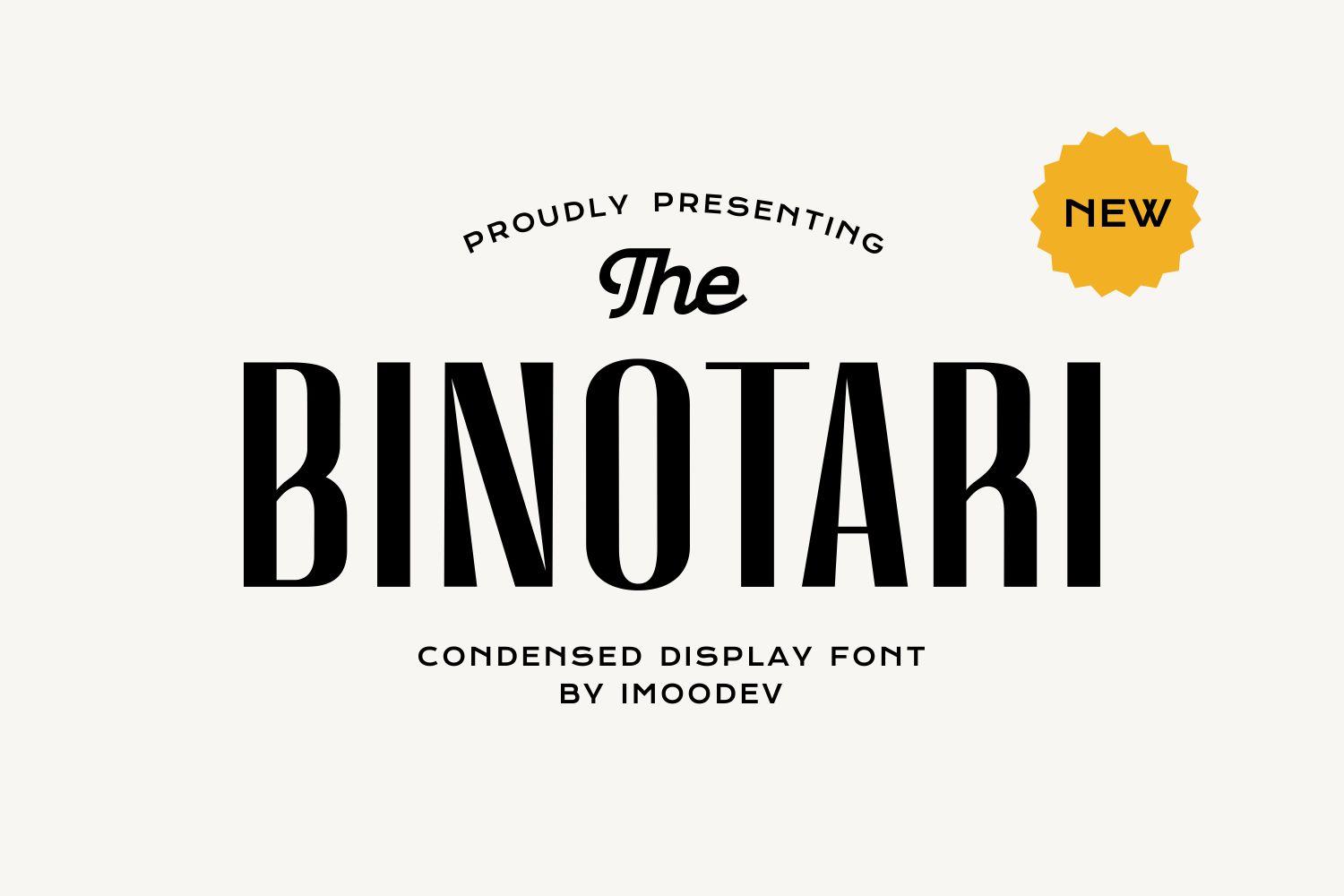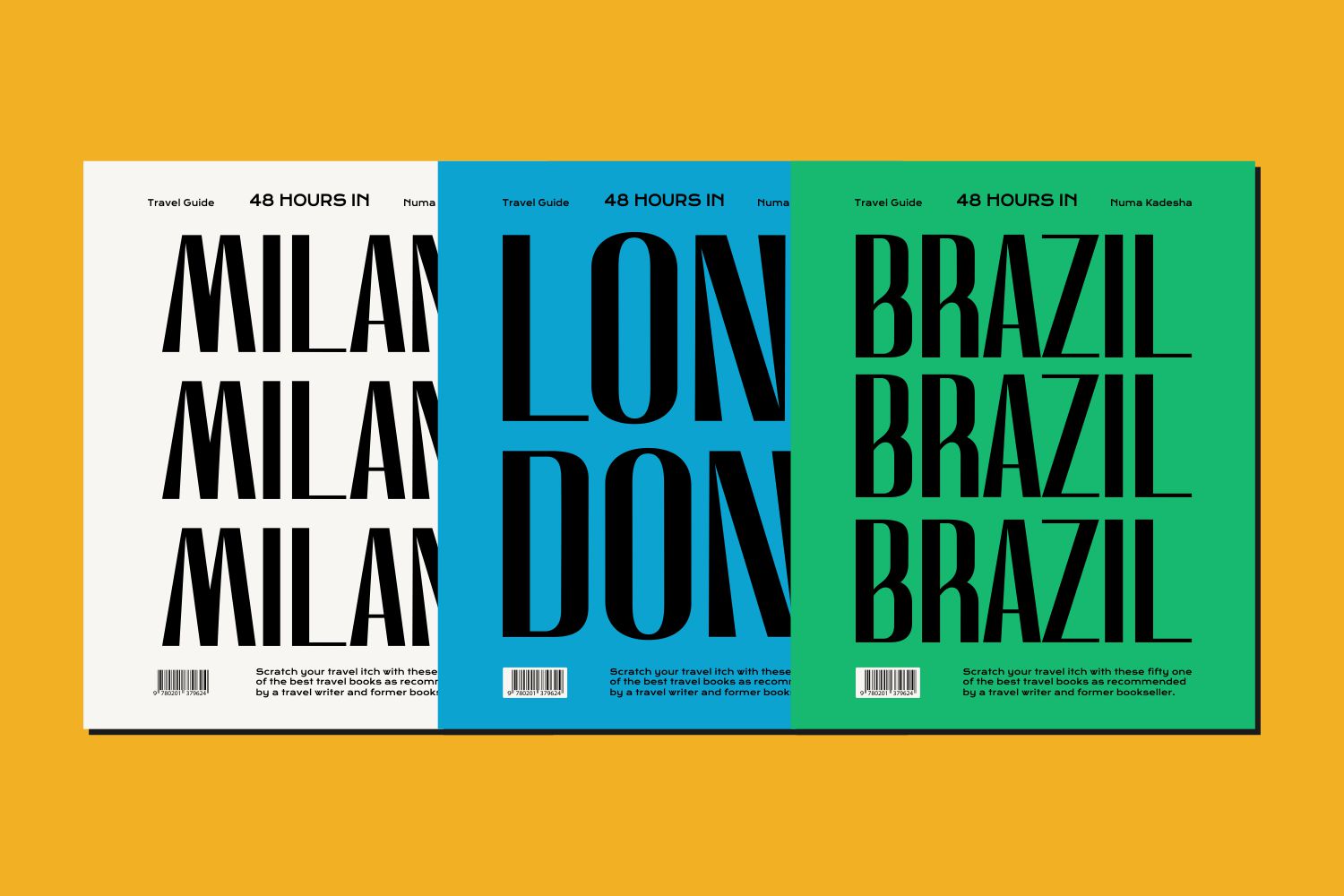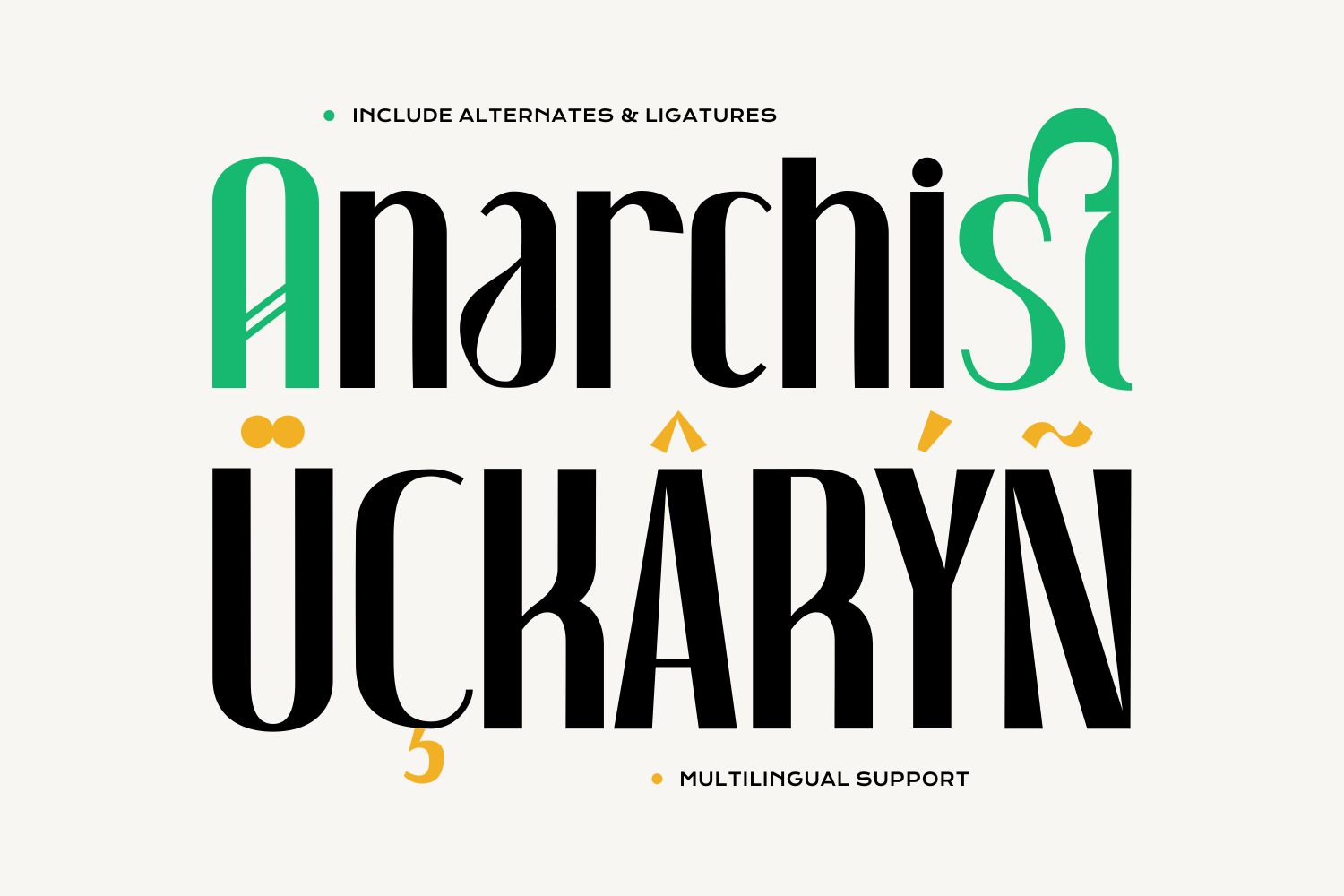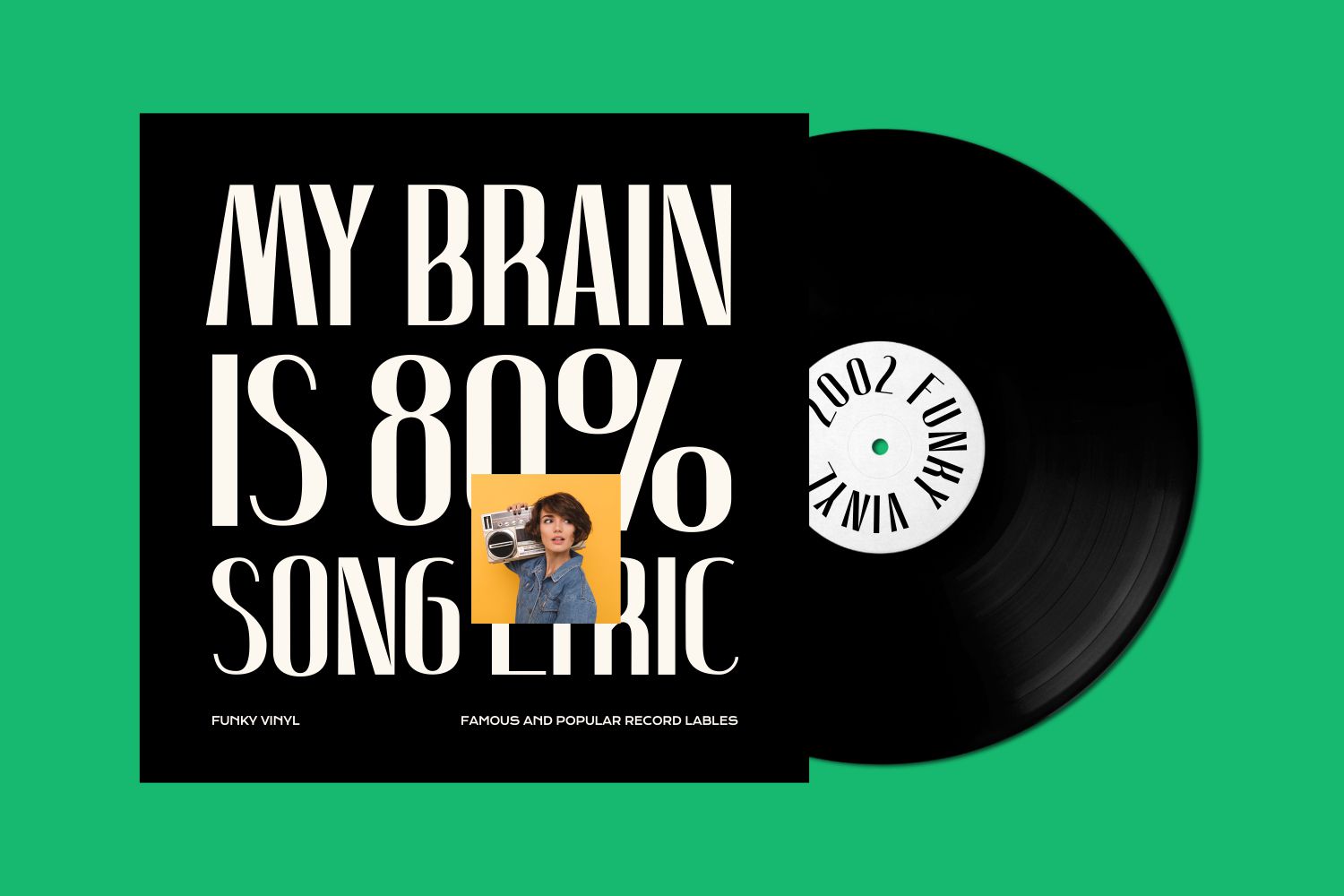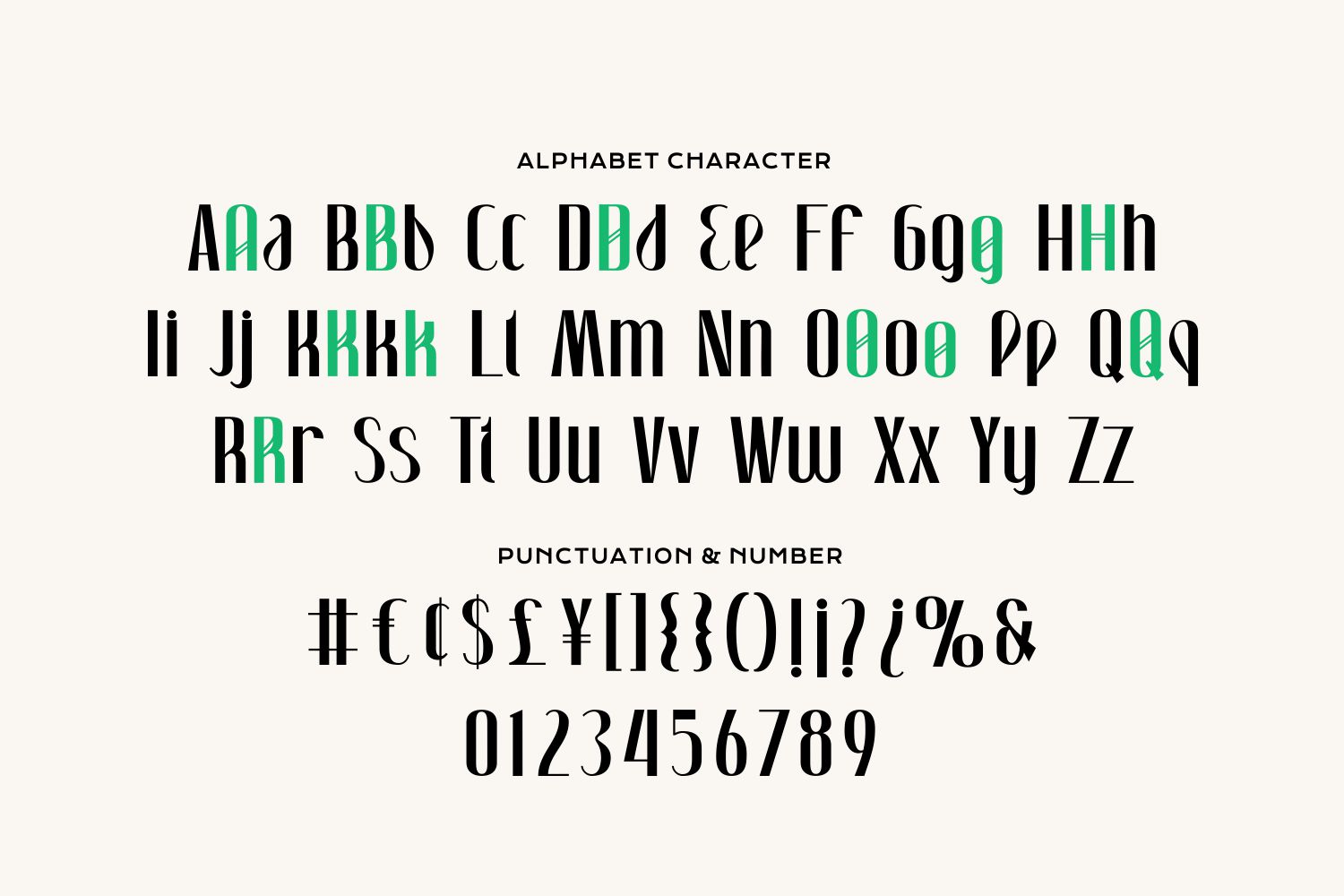
Binotari
Binotari is a modern condensed display font with bold strokes and elegant curves, designed to make a strong visual impact. Its sleek and elongated letterforms bring a contemporary feel that works perfectly for magazine headlines, posters, album covers, and branding that needs a confident and stylish statement. With its balance of sharp edges and smooth shapes, this typeface commands attention while maintaining a sense of sophistication.
Equipped with alternates, ligatures, and multilingual support, Binotari offers versatility for both creative and professional use. From editorial layouts to fashion campaigns and music artwork, this font adapts effortlessly to diverse design needs. Its condensed style allows maximum space efficiency without sacrificing readability, making it an ideal choice for impactful modern typography.